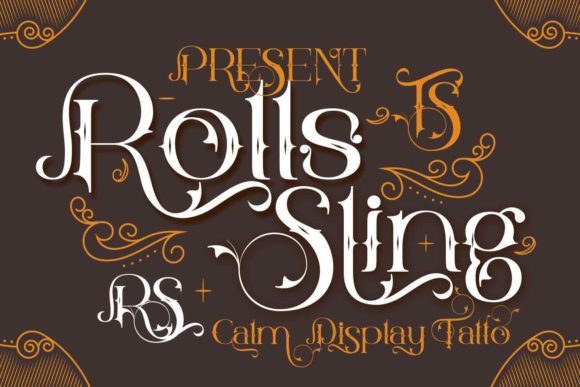
Introducing Rolls Sling, the ultimate tattoo-inspired blackletter font that will take your designs to a whole new level of awesomeness. Created by the talented jehansyah251, this font is a game-changer for anyone looking to make a lasting impression with their designs.
With Rolls Sling, you can unleash your creativity and bring a touch of elegance and uniqueness to your projects. Whether you're designing wedding invitations, stunning stationary art, captivating social media posts, or any other creative endeavor, this font is the perfect choice to make your work stand out from the crowd.
Embodying the essence of sophistication and style, Rolls Sling will captivate your audience with its mesmerizing curves and intricate details. Its tattoo-inspired design adds a touch of rebelliousness and edginess, making it ideal for those who want to make a bold statement with their designs.
Imagine the impact of using Rolls Sling on your next project. Picture the elegant wedding invitations that will leave a lasting impression on every guest. Envision the beautiful stationary art that will adorn desks and inspire creativity. Visualize the eye-catching social media posts that will stop users in their tracks and make them engage with your content.
But Rolls Sling is not just about looks. It also offers incredible versatility, allowing you to adapt it to any design concept you have in mind. Its flexibility enables you to play with different styles, from vintage and retro to modern and contemporary. No matter the theme or mood you want to convey, Rolls Sling has got you covered.
And let's not forget the power of emotions. Rolls Sling evokes a sense of nostalgia, taking us back to a time when craftsmanship and attention to detail were highly valued. It creates a connection with your audience, making them feel a sense of authenticity and genuine artistry.
In conclusion, Rolls Sling is not just a font, it's an opportunity to elevate your designs and make a lasting impact. With its tattoo-inspired blackletter style, versatility, and emotional appeal, it's the perfect choice for anyone looking to create stunning and memorable visuals. So why settle for ordinary when you can have extraordinary? Download Rolls Sling now and let your creativity soar!